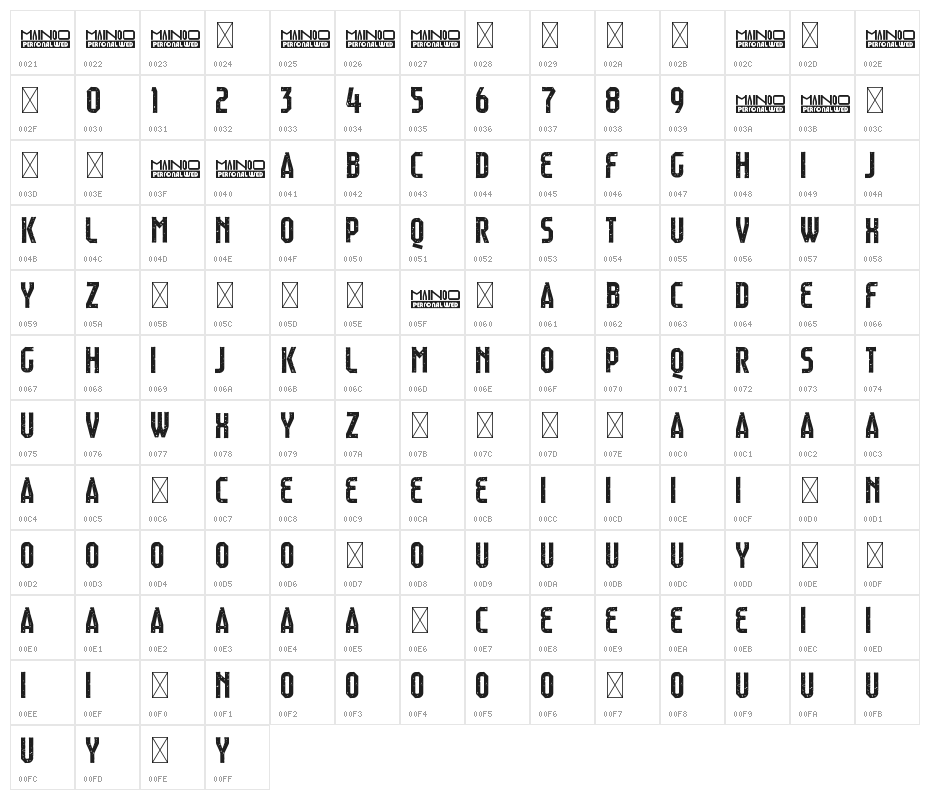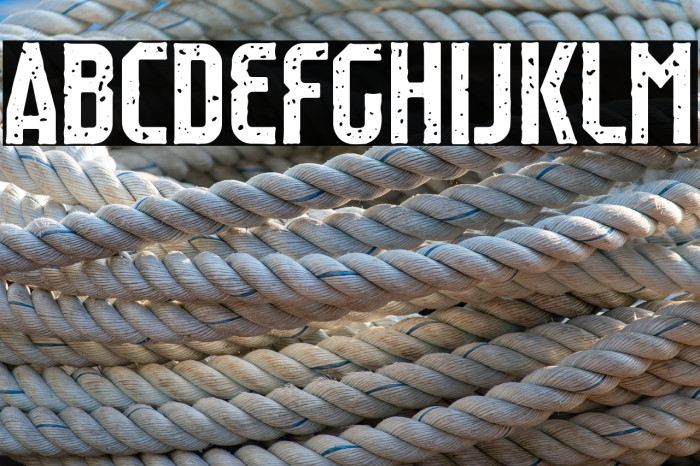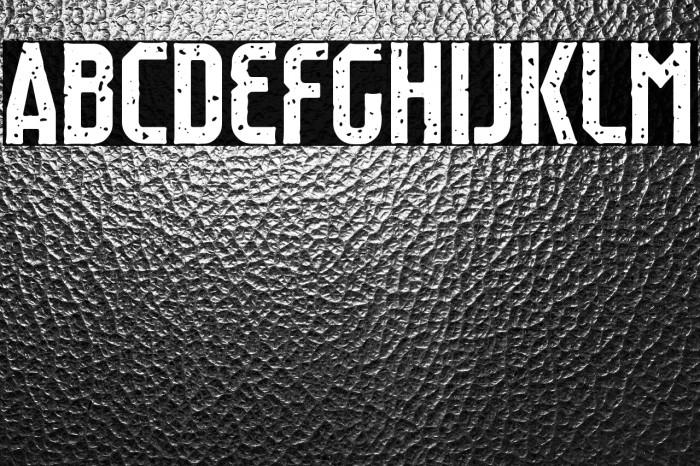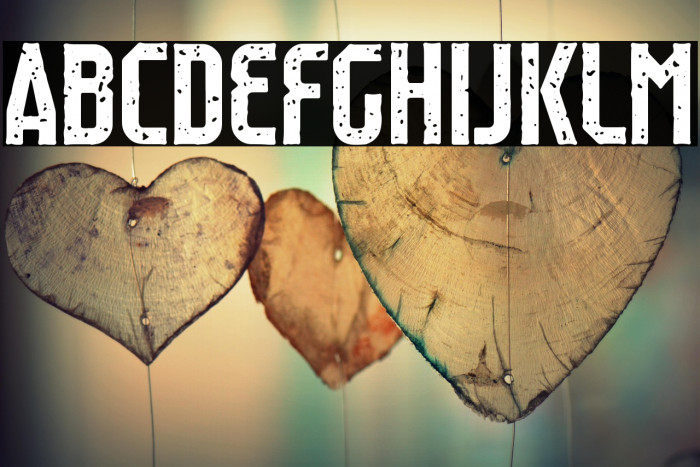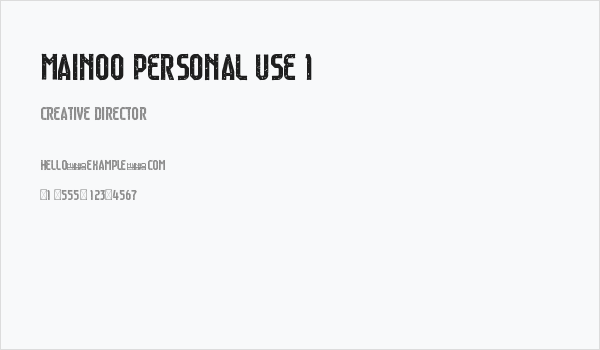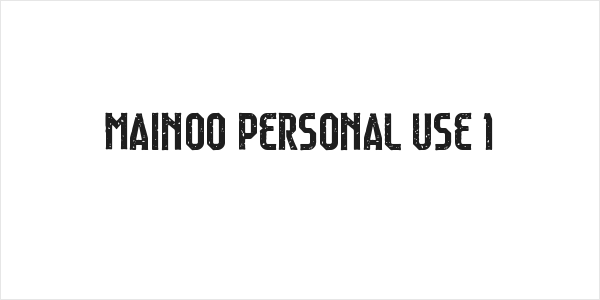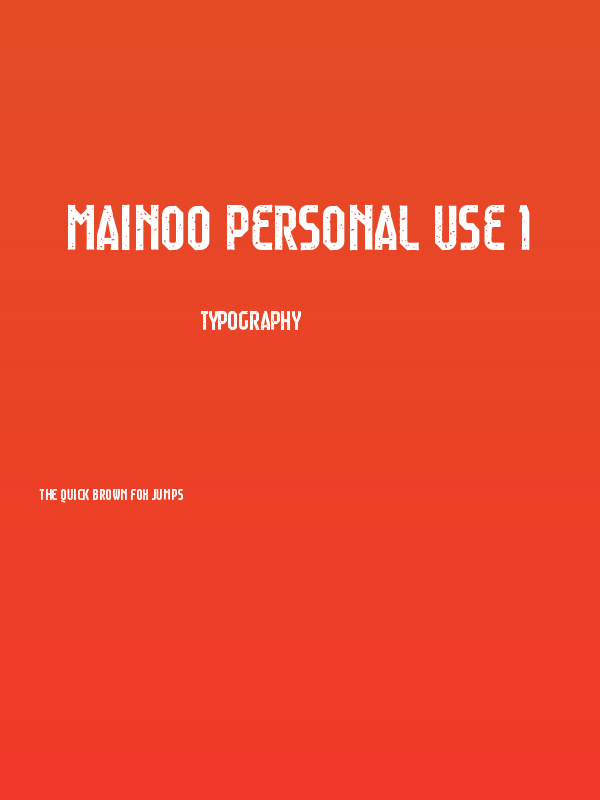
Mainoo Personal Use 1 Font
Mainoo Personal Use 1 Description
This font features a bold and decorative style with a distressed texture that gives it a rugged, vintage appearance. The characters are all uppercase, with a consistent width and a slightly condensed form. The unique texture within each letter adds a sense of depth and character, making it stand out in any design. The numbers follow the same stylistic approach, ensuring uniformity across all characters. The font's distinct style is ideal for projects that require a strong visual impact.
| Proposed Projects | Ideal for posters, branding, logos, and any design needing a bold, vintage look. |